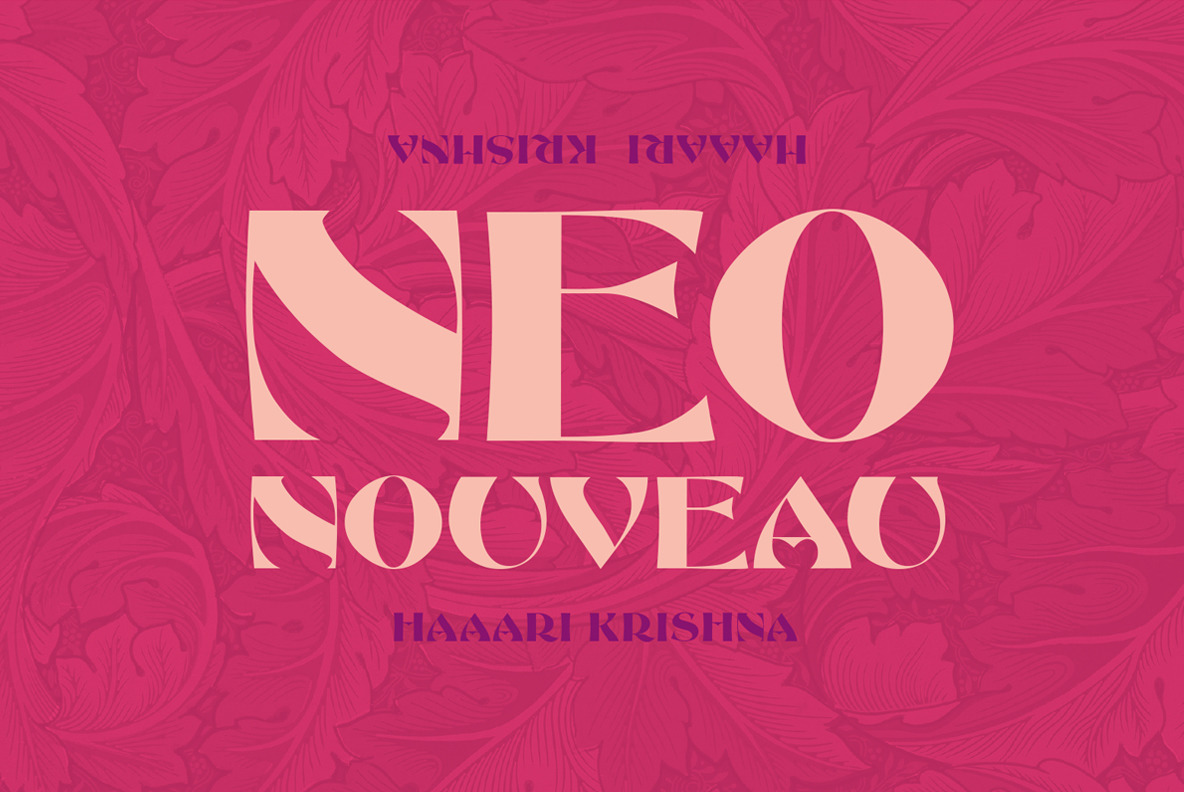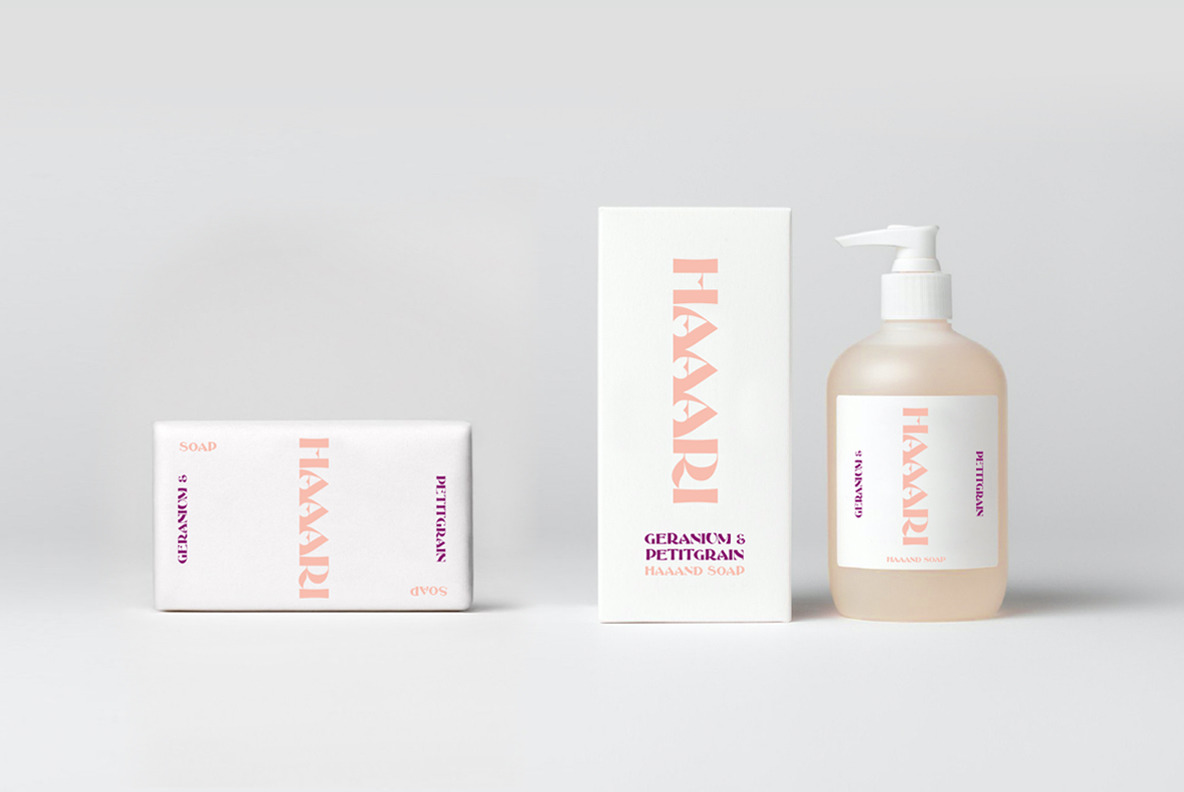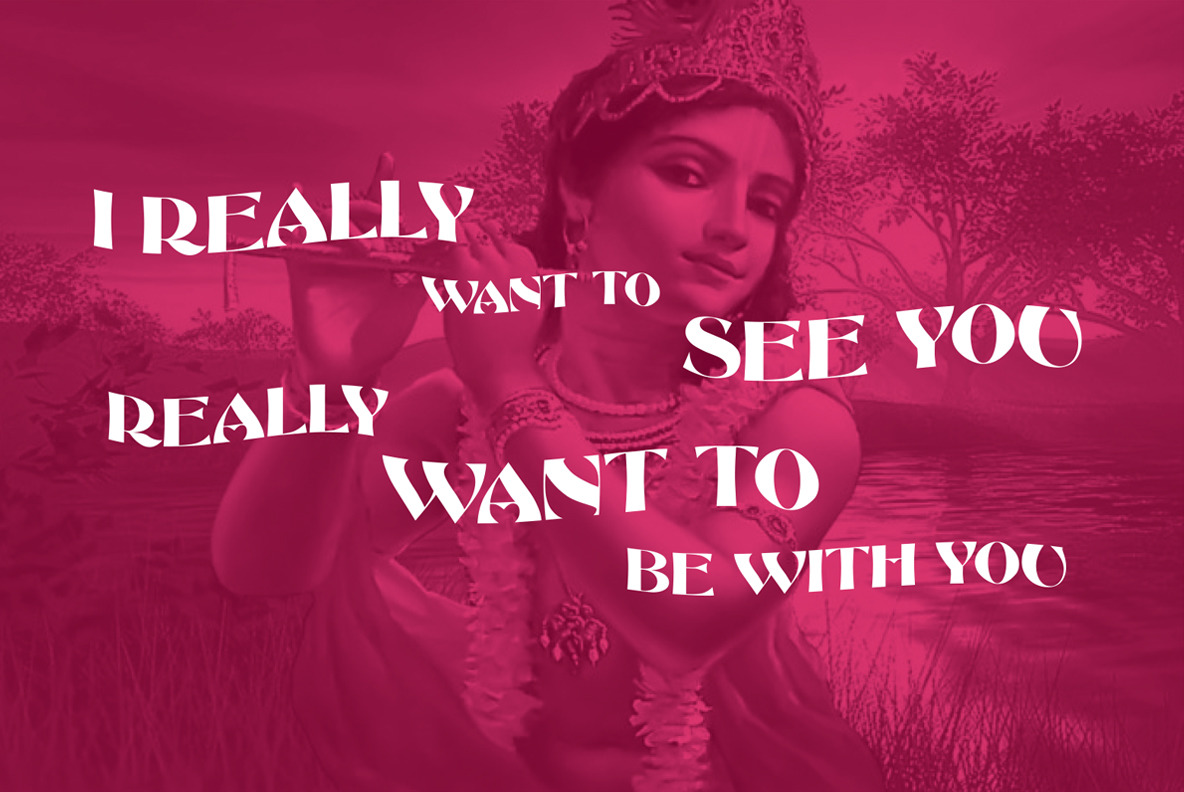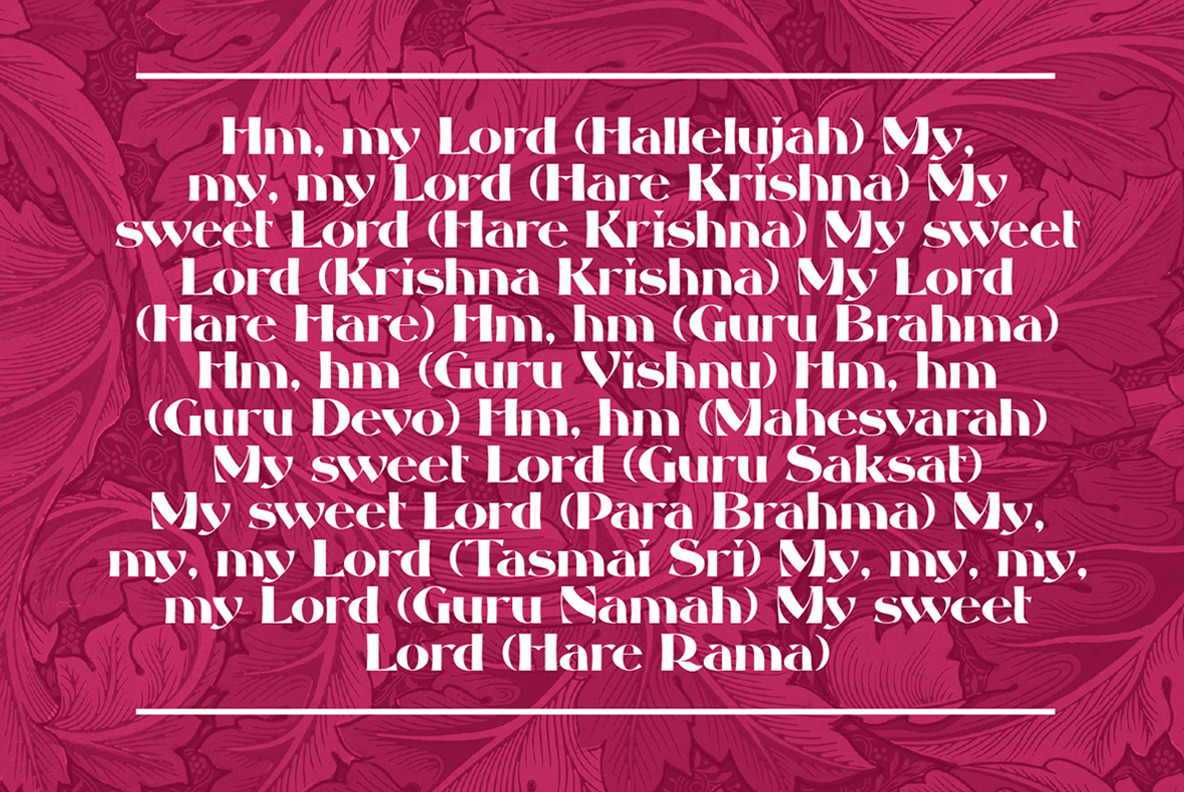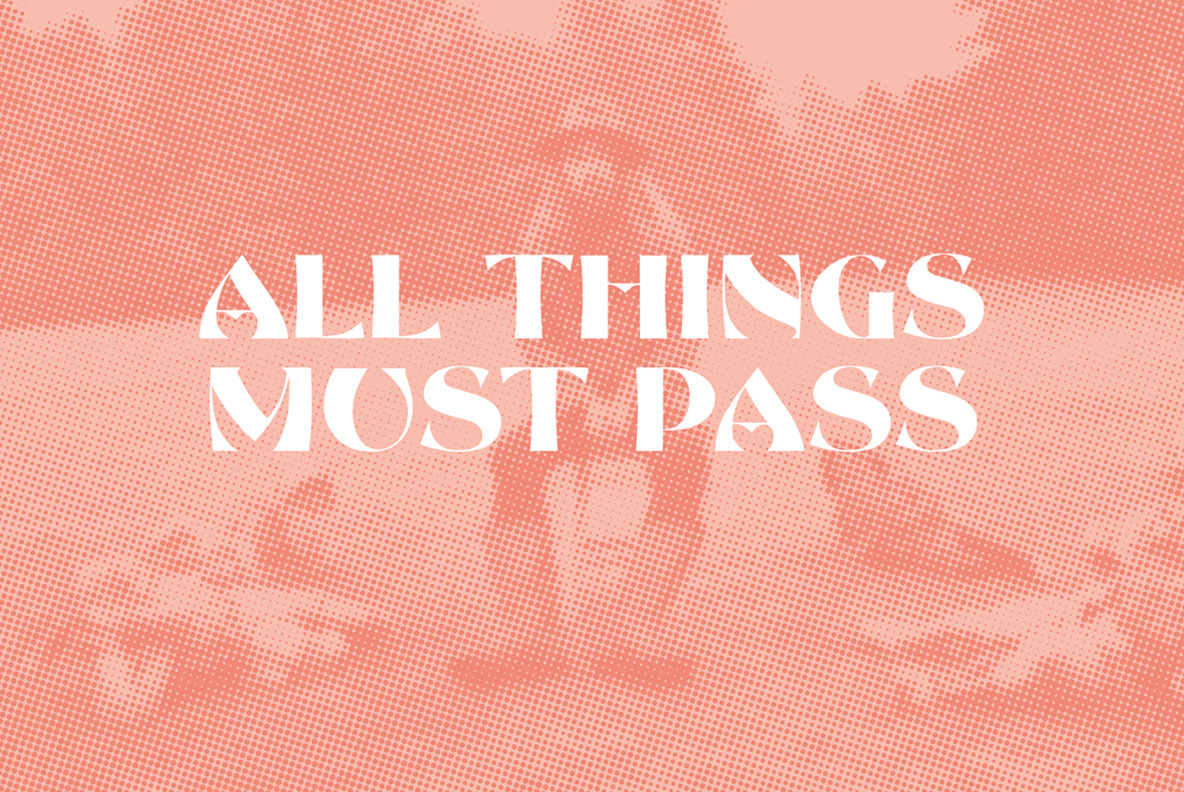
Haaari Font
Haaari is inspired by George Harrison's album "All things must pass'. It's a got Art Nouveau DNA and decorations - but it's updated to be clean, sharp and modern. Its refined curves and bold shapes make it stand out - in a super stylish way. Haaari has hippy trail Hare Krishna vibes and is perfect for a proper psychedelic freak out experience. Haaari's an elegant bohemian... Turn on, tune in, drop out!